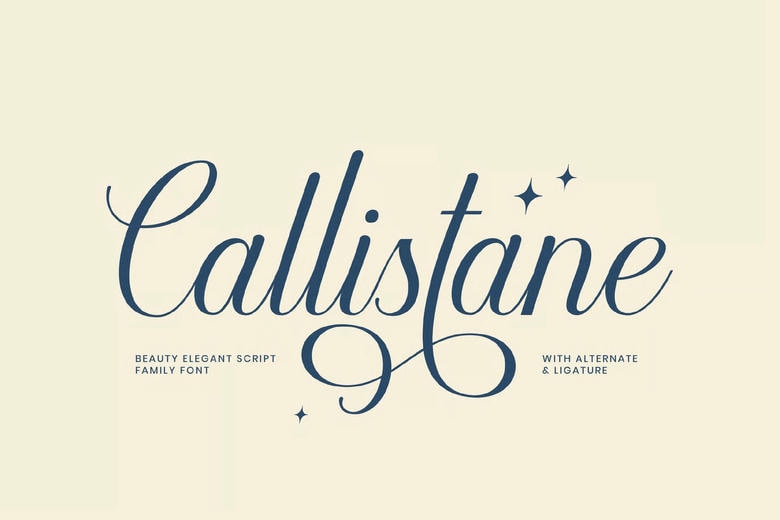
Callistane Font
Callistane is a graceful and elegant typeface family that brings out beauty, sophistication, and a modern, feminine feel. Its flowing strokes, gentle curves, and refined letters give it a unique style.
Callistane brings a sense of luxury and easy charm to any design. It’s a great choice for branding or editorial projects, offering a soft, elegant, and high-end look that feels timeless and modern.
Callistane Calligraphy Script Font Family